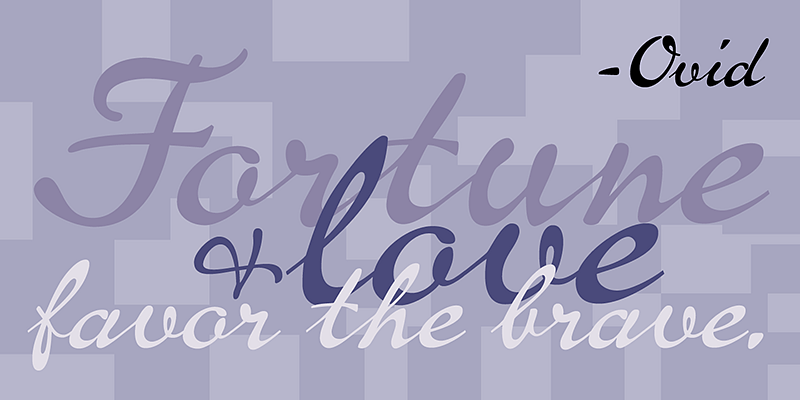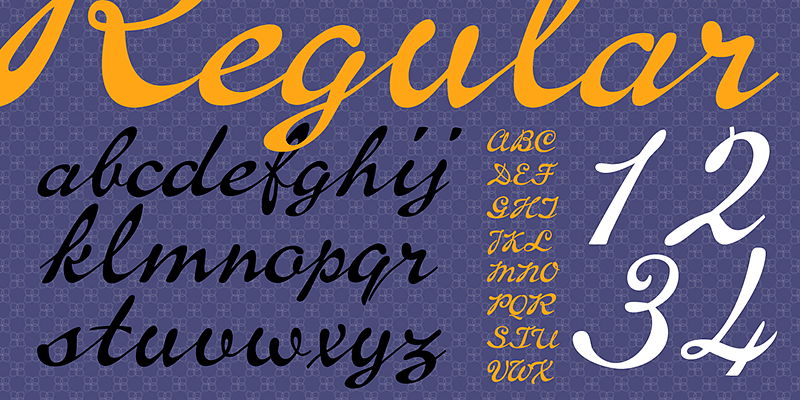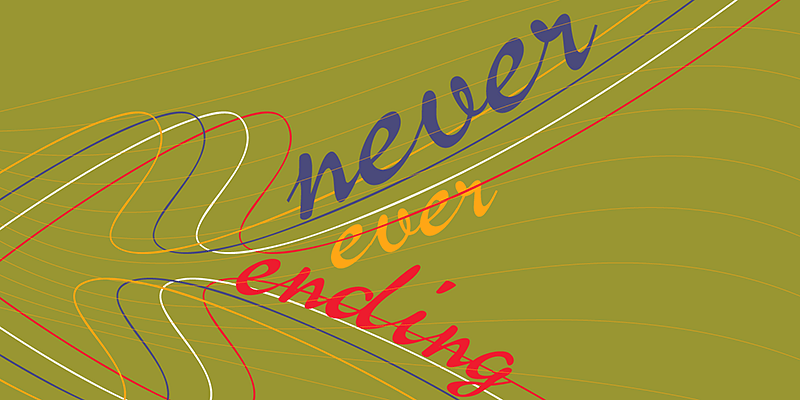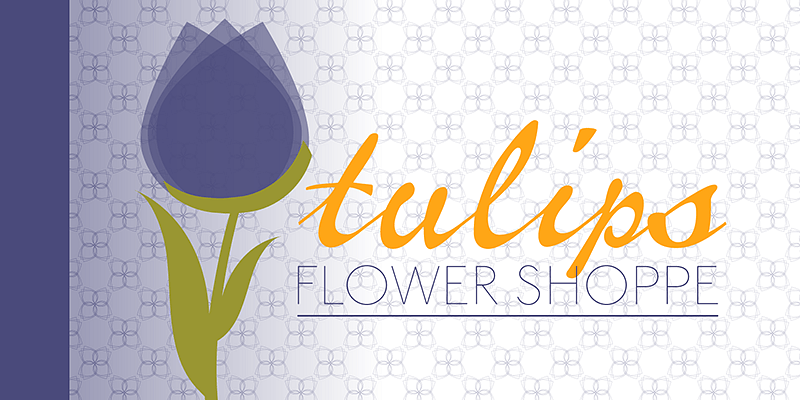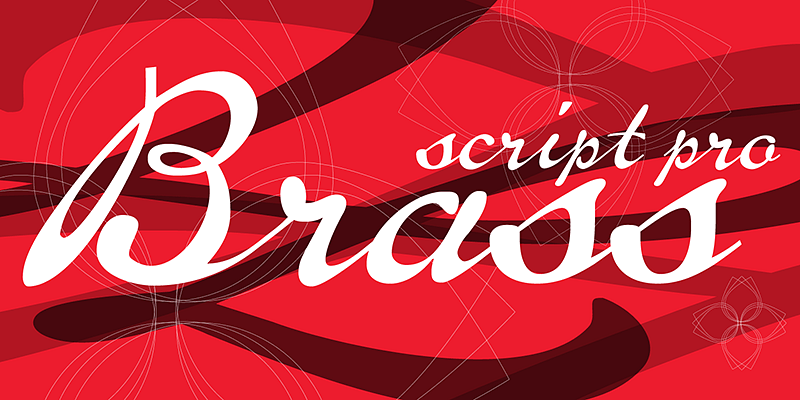
P22 Brass Script inspiration was discovered in a booklet from Dornemann & Co. of Magdeburg Germany, circa 1910. It has an unusual flow that is neither too casual nor too formal.